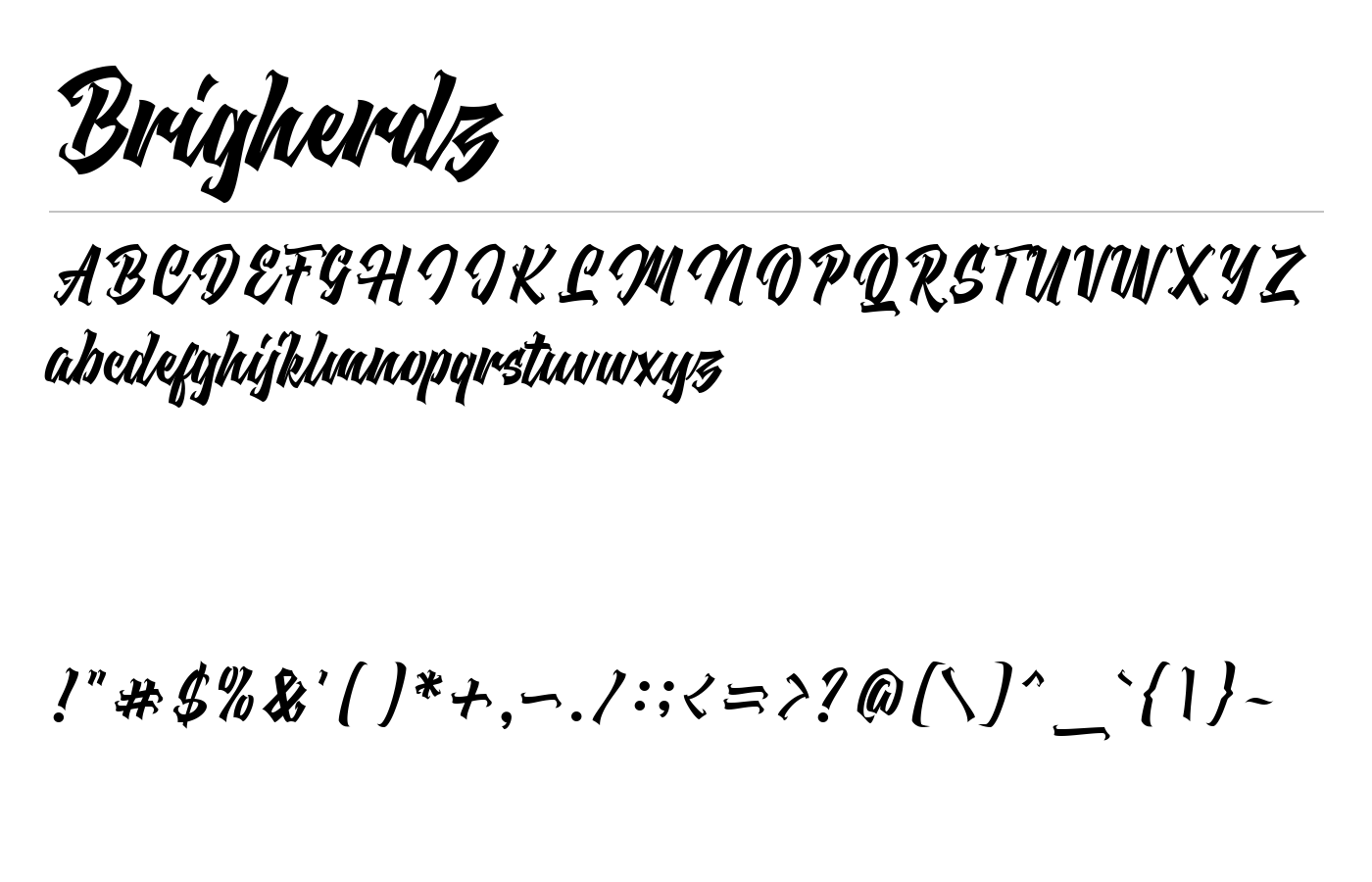
Brigherdz is a bold, expressive script font with a modern calligraphic style that combines sharp, dynamic strokes and a lively, hand-drawn feel. Its strong contrast and energetic letterforms make it perfect for eye-catching headlines, logos, and creative branding where a sense of individuality and artistic flair is desired. This font works especially well in designs that aim to evoke personality and contemporary style with a touch of casual elegance.
Brigherdz Font
About Brigherdz Font
| Font family | Brigherdz Font |